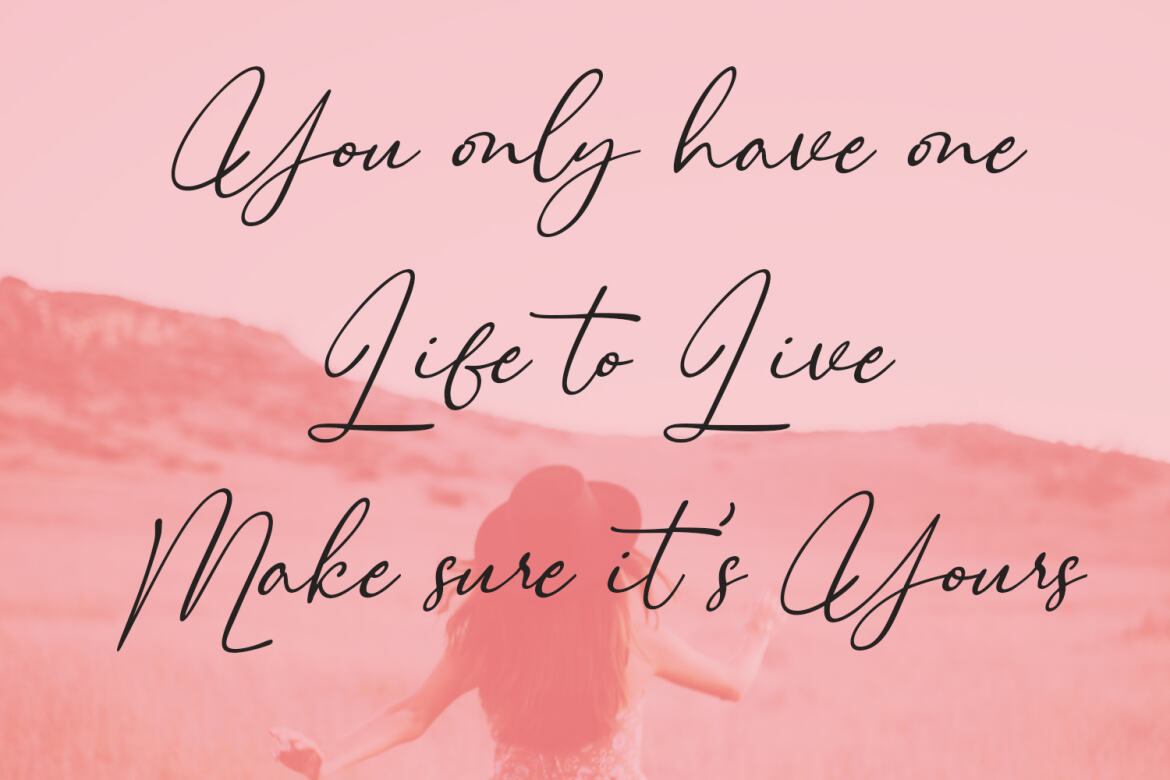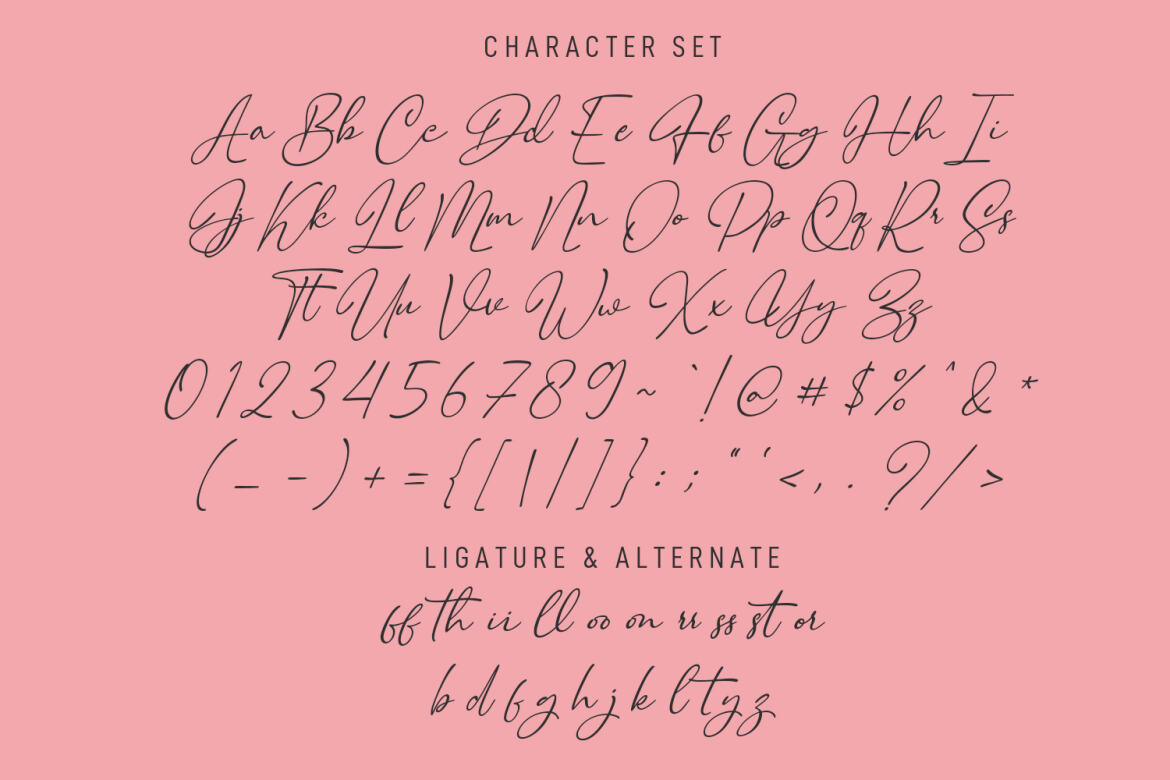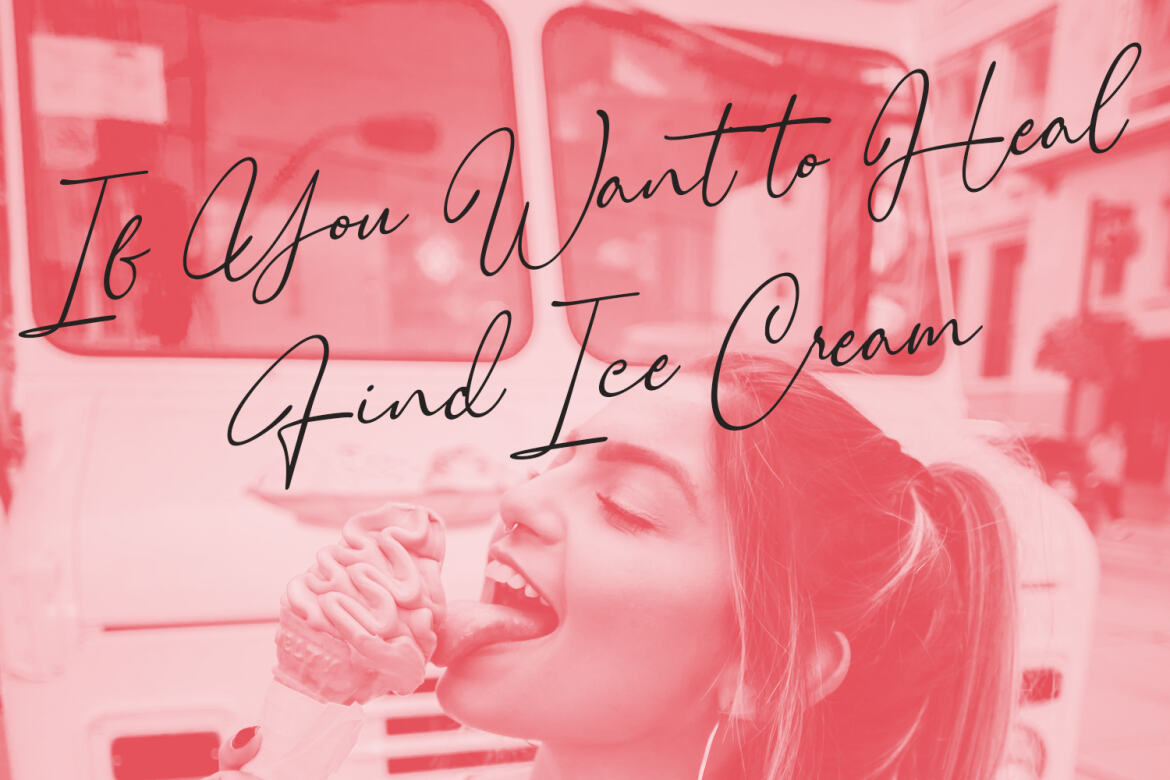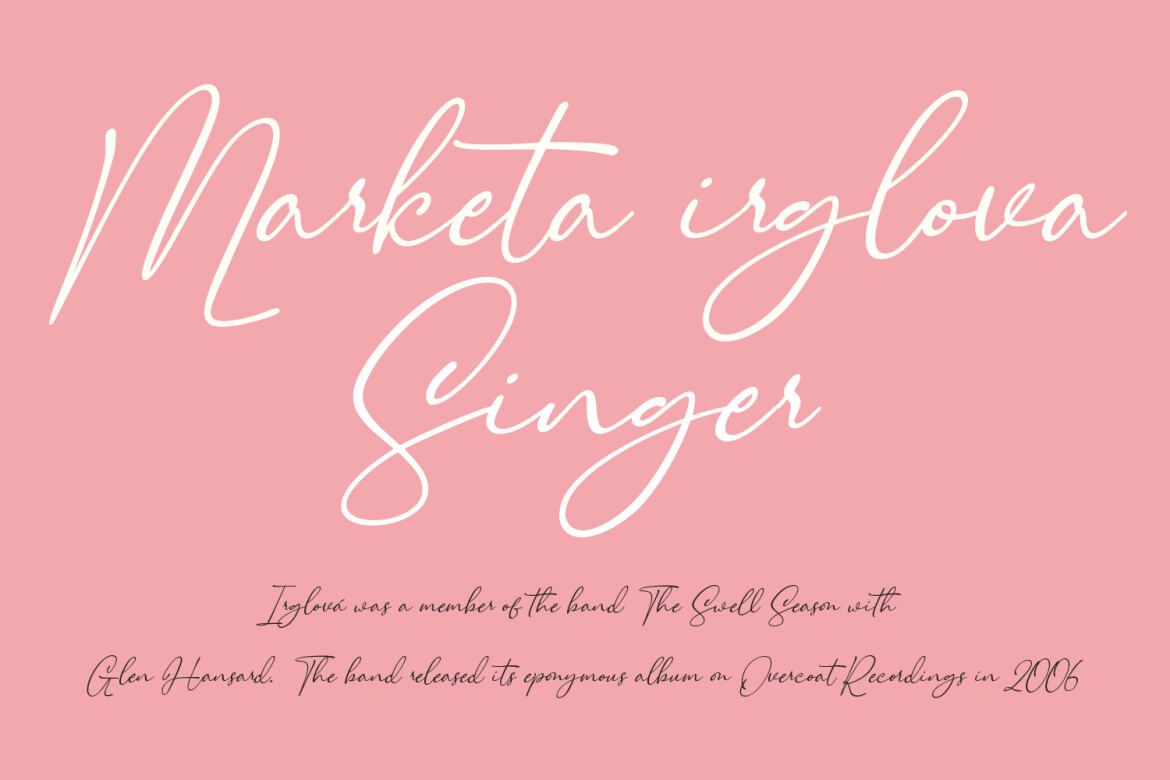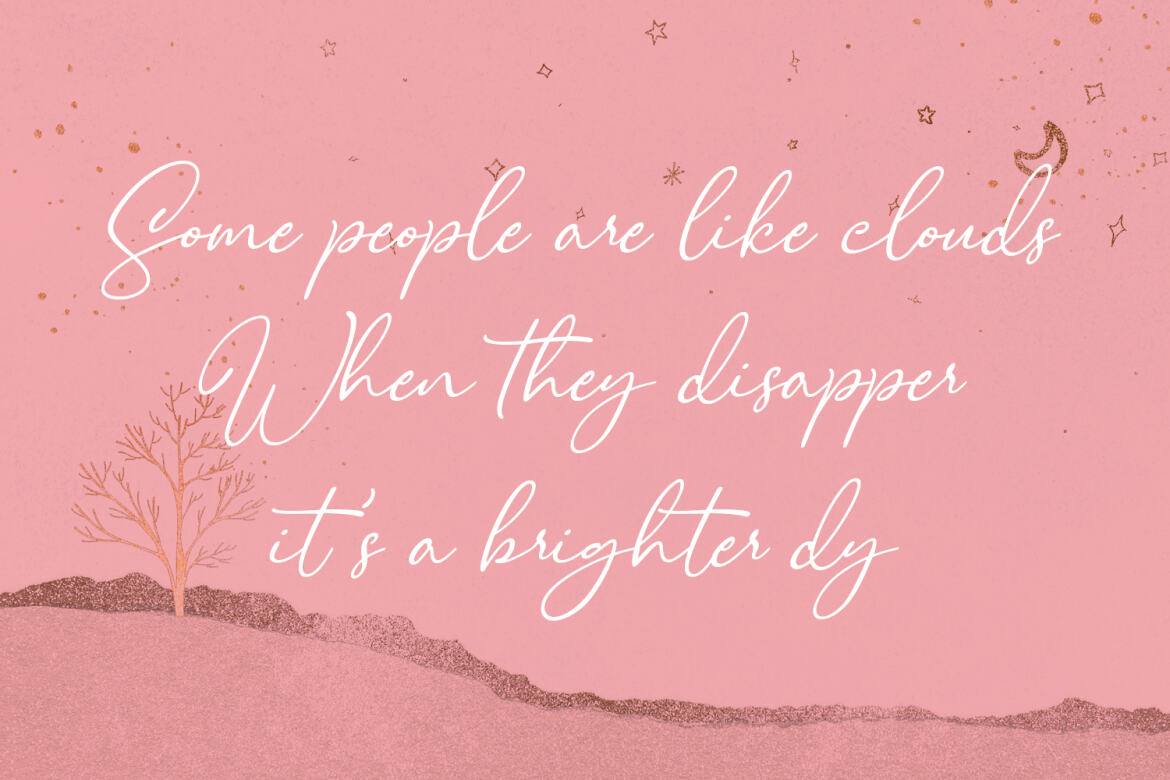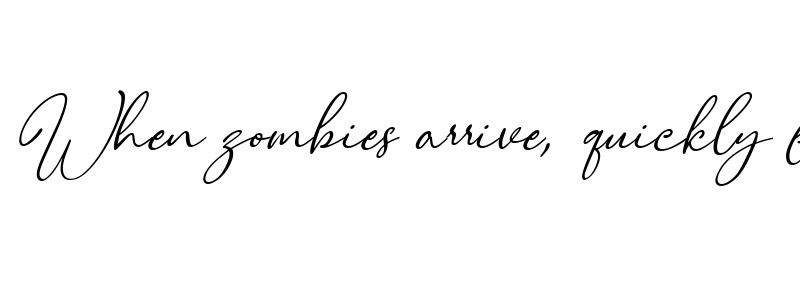
Sistermoon Script FREE Font
Sistermoon
Sistermoon is a fancy handwritten script font. With pen super slanted stroke, fun character with a bit of ligatures and alternates. To give you an extra creative work. Sistermoon font support multilingual more than 100+ language. This font is good for logo design, Social media, Movie Titles, Books Titles, a short text even a long text letter and good for your secondary text font with sans or serif. Make a stunning work with Sistermoon font.